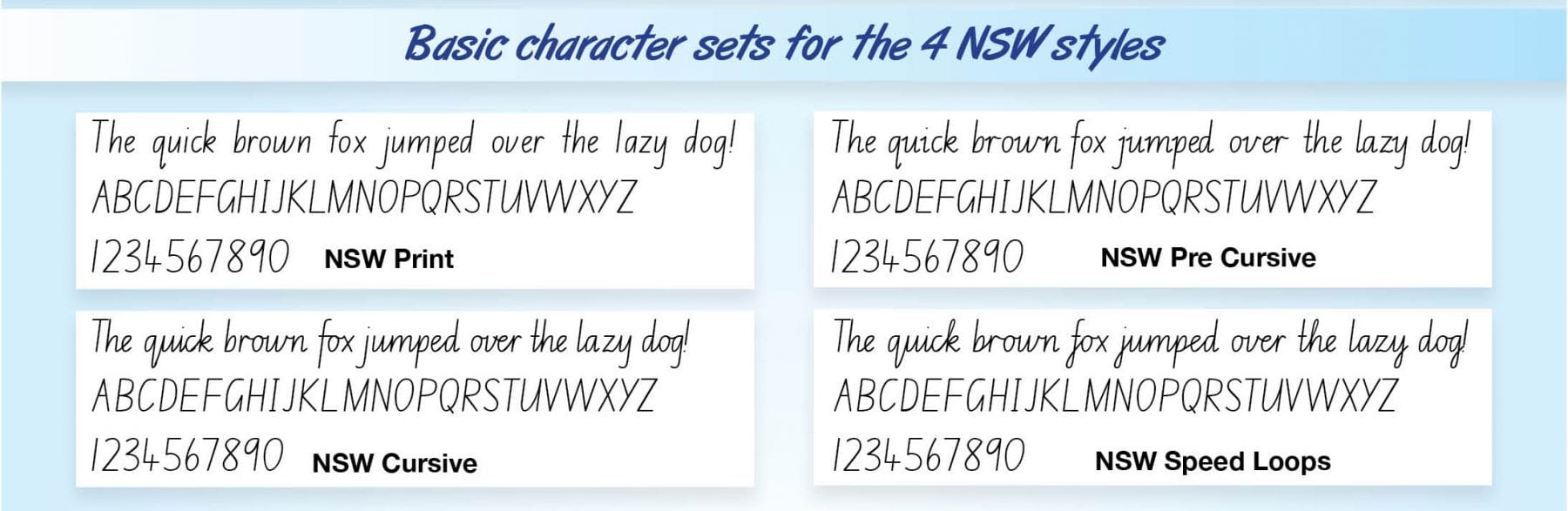
New South Wales Font. Web public sans is a free, open source typeface, to be used across all levels of our brand, making information clear and easy to read. Web new south wales free font.
The nsw fonts are designed in strict accordance with the current nsw foundation style as specified. Web new south wales free font. Web the nsw act school fonts include both: Web public sans is a free, open source typeface, to be used across all levels of our brand, making information clear and easy to read.
Web new south wales free font. Web the nsw act school fonts include both: The nsw fonts are designed in strict accordance with the current nsw foundation style as specified. Web new south wales free font. Web public sans is a free, open source typeface, to be used across all levels of our brand, making information clear and easy to read.